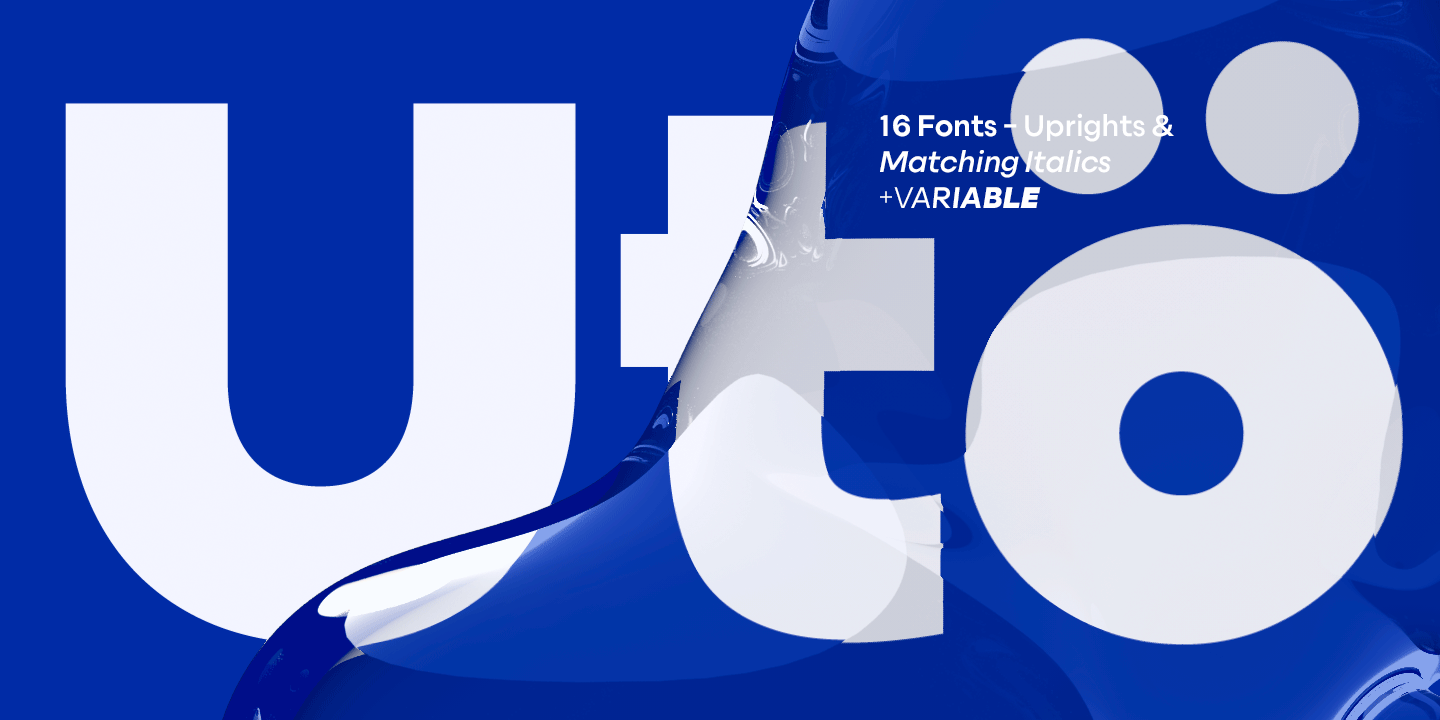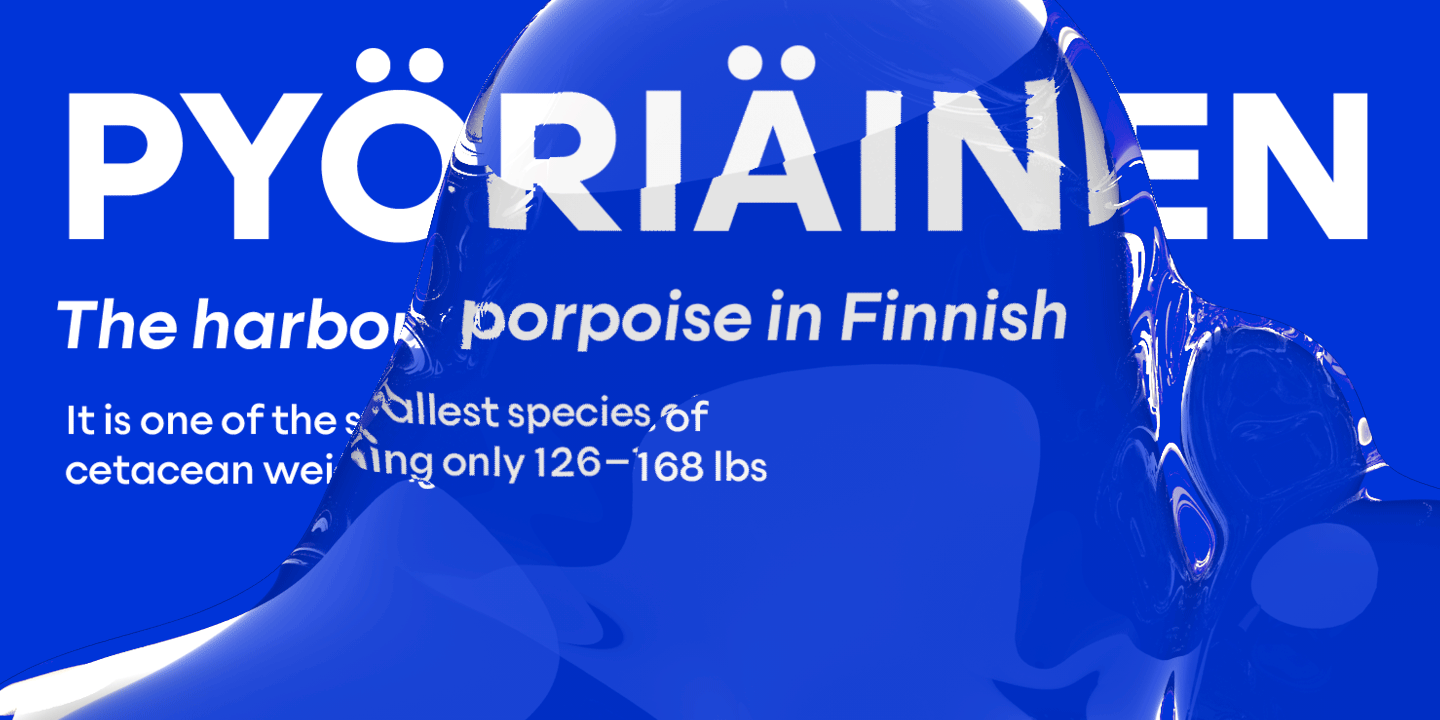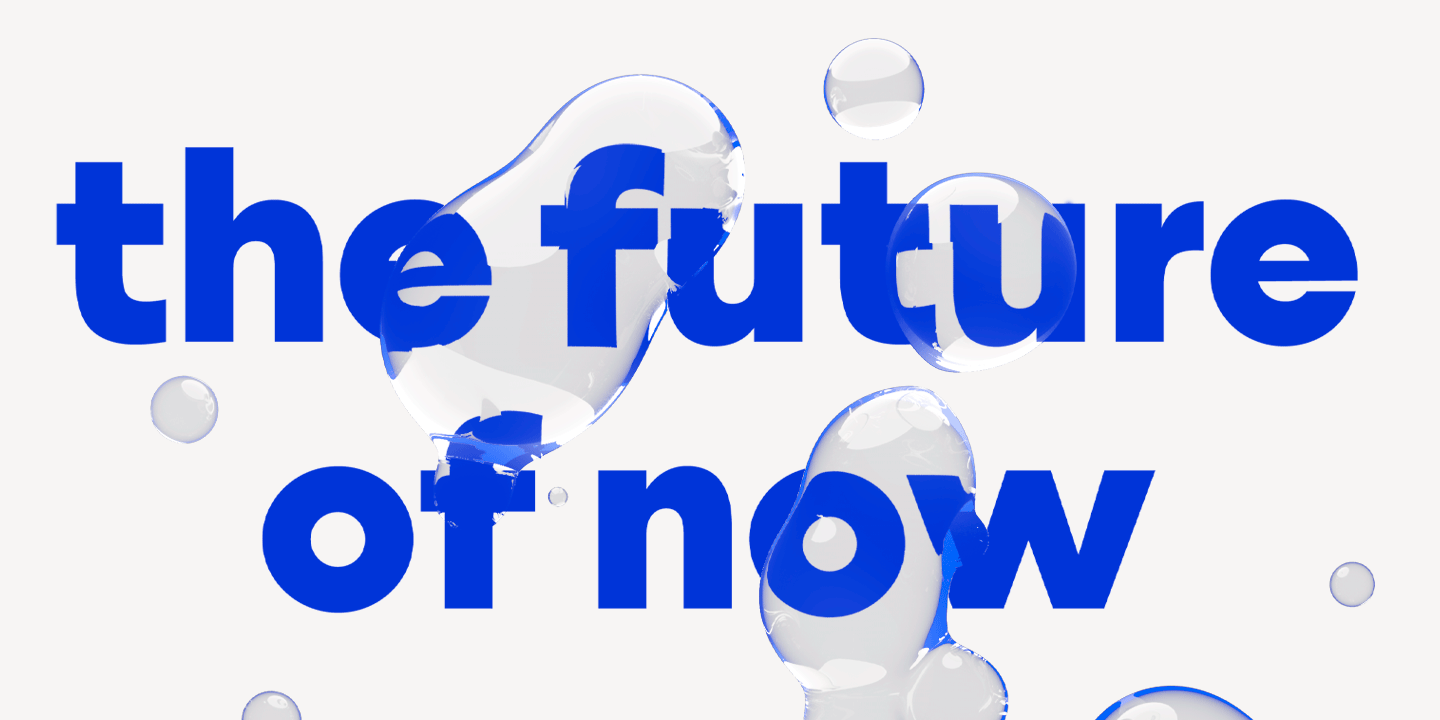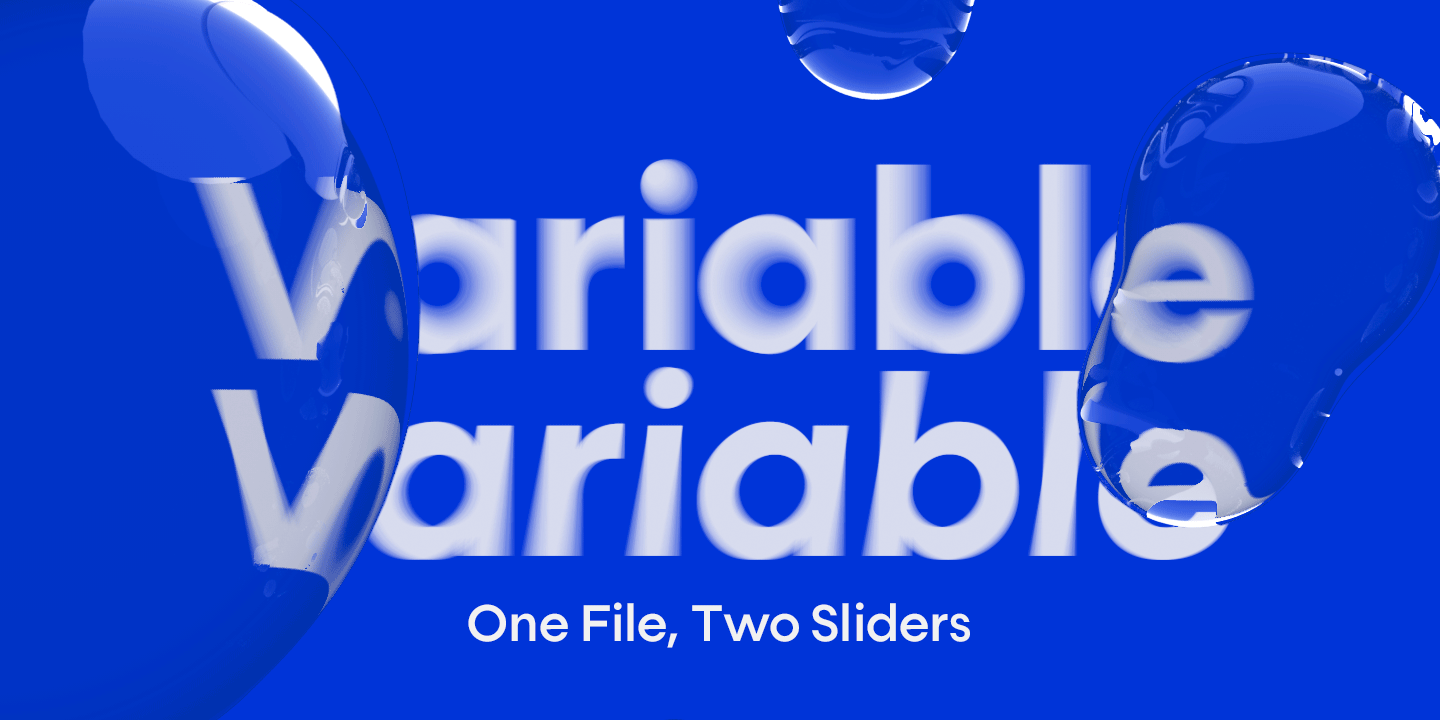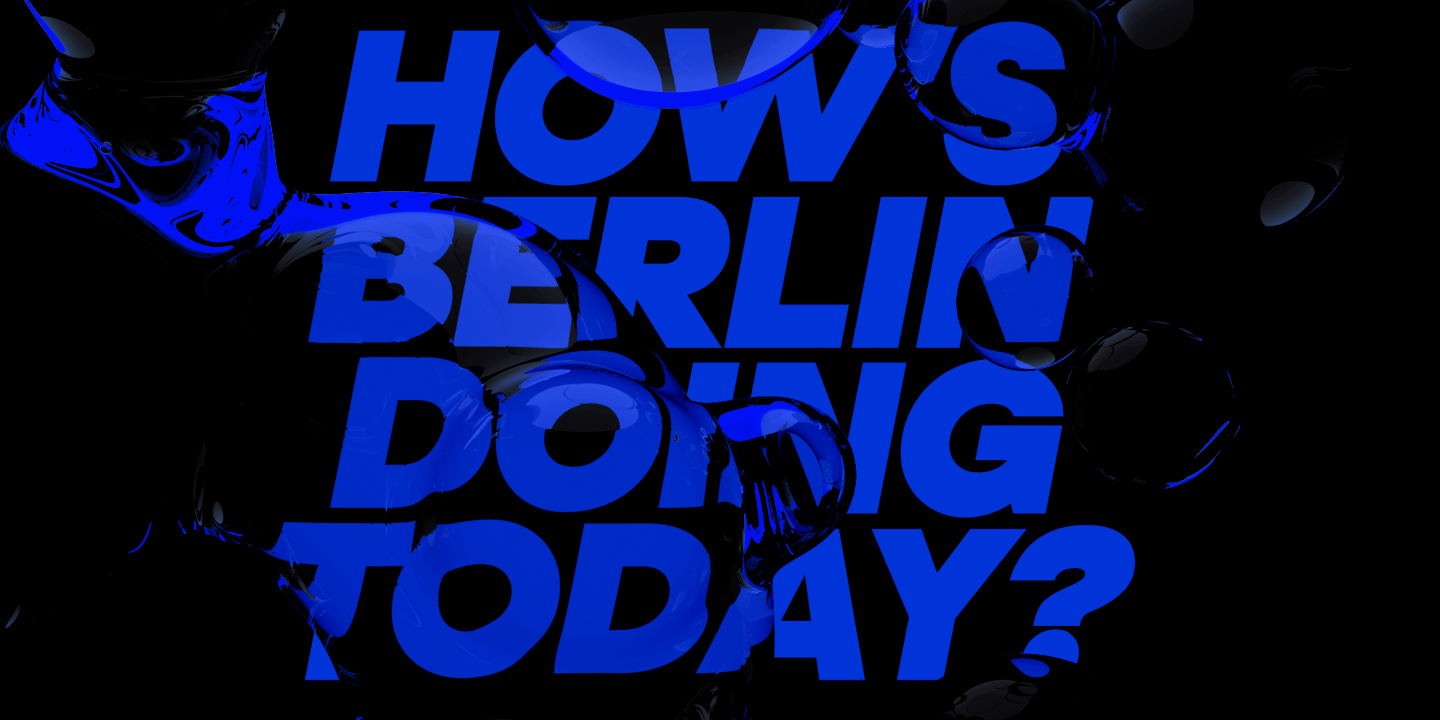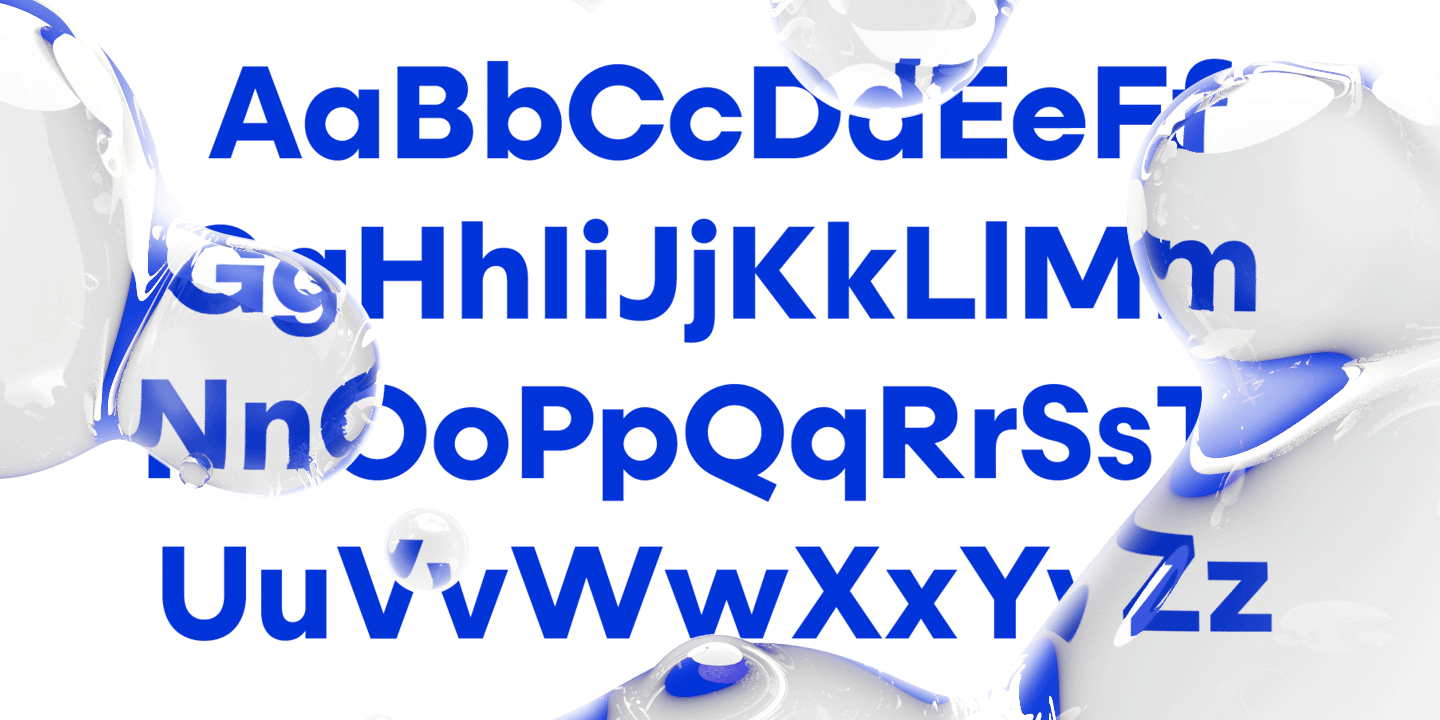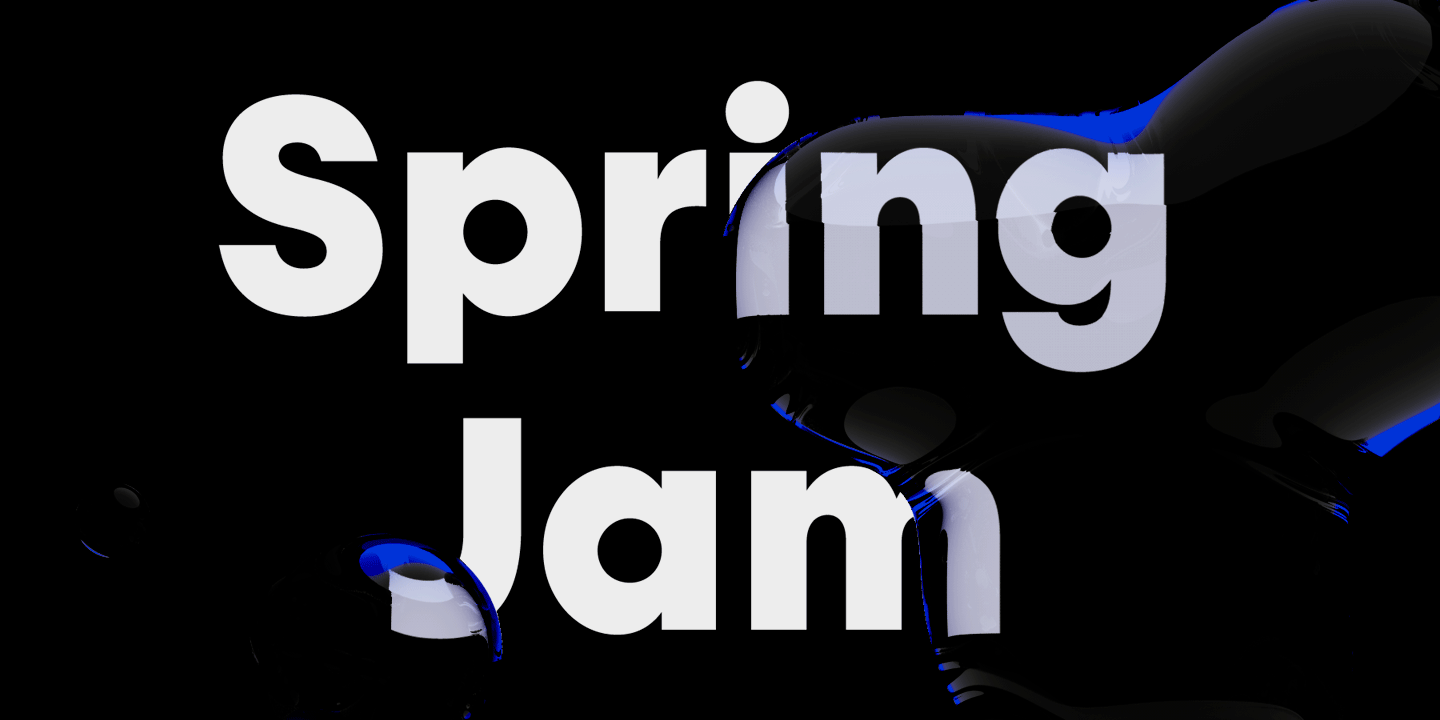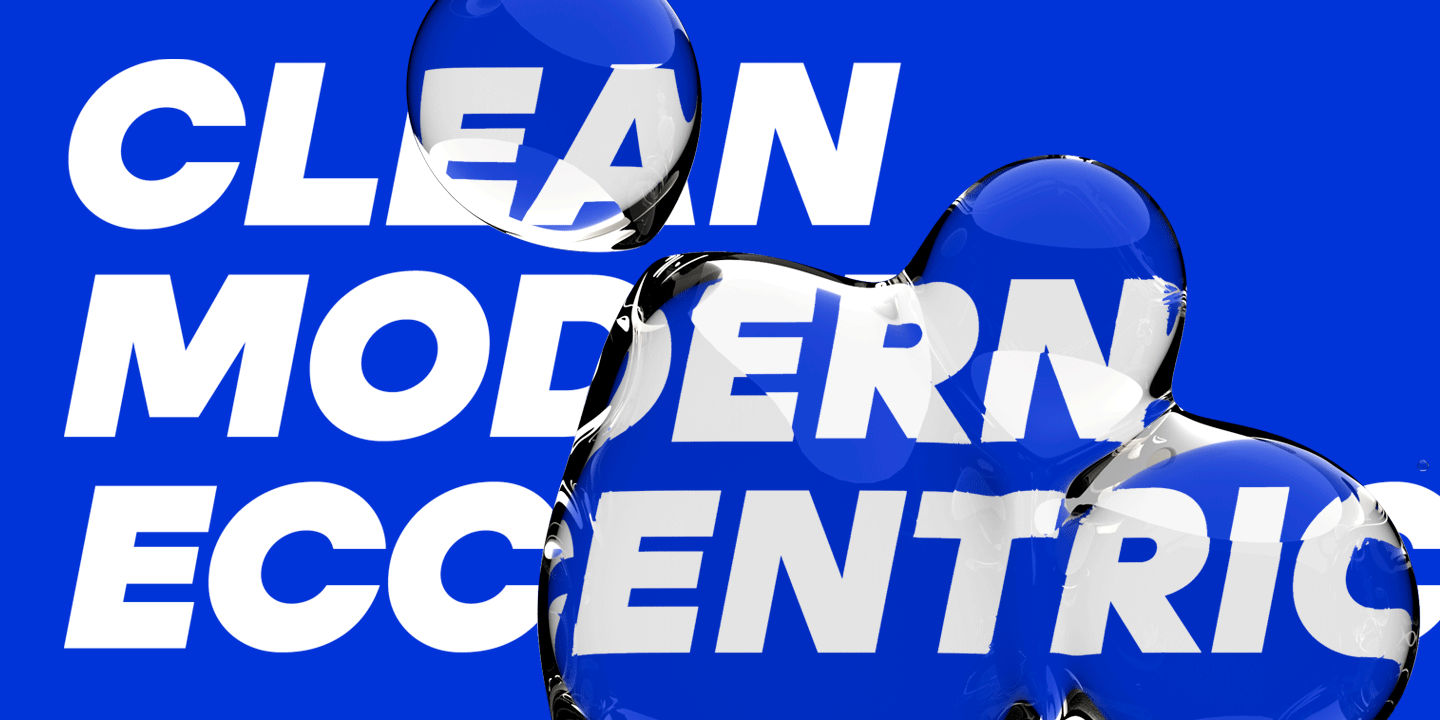
Uto
About Uto
The Uto font family is named after the island of Utö, the southernmost part of Finland – an ascetic place that’s defined by bare simplicity. The same is true for the font, that’s constructed of the simplest of forms. At the outer…